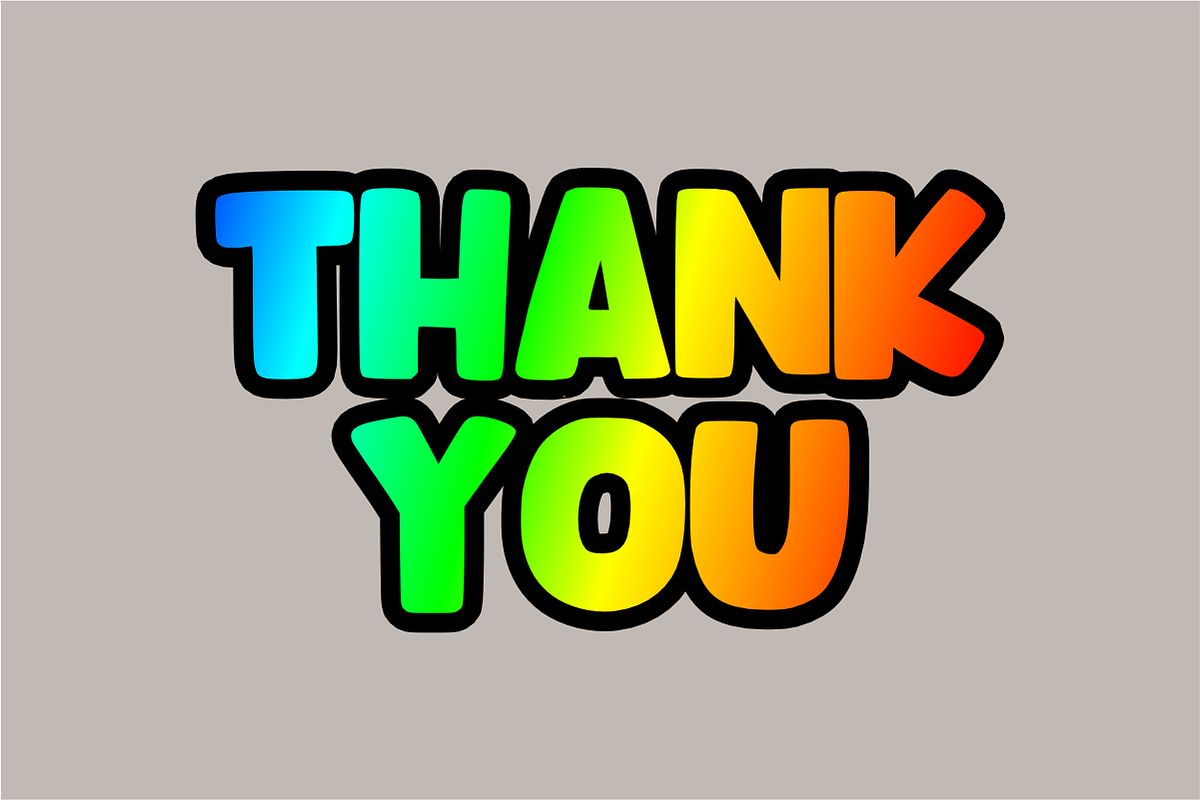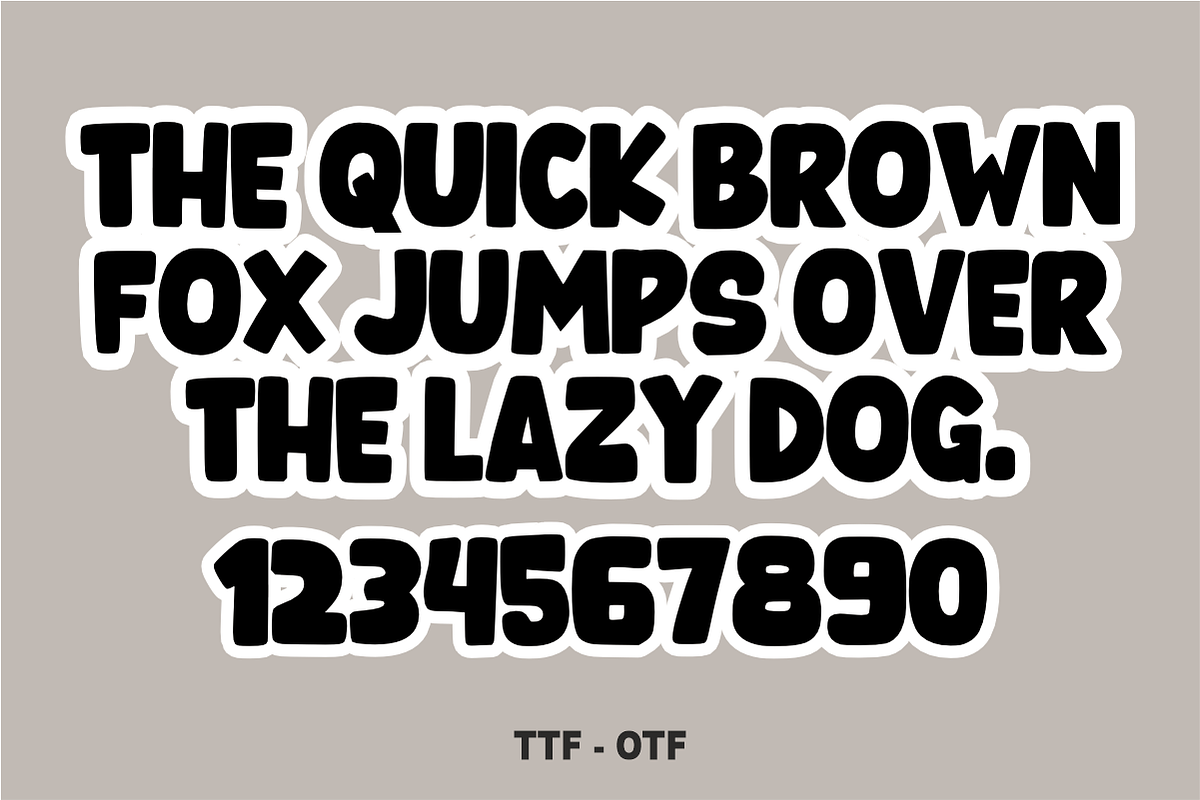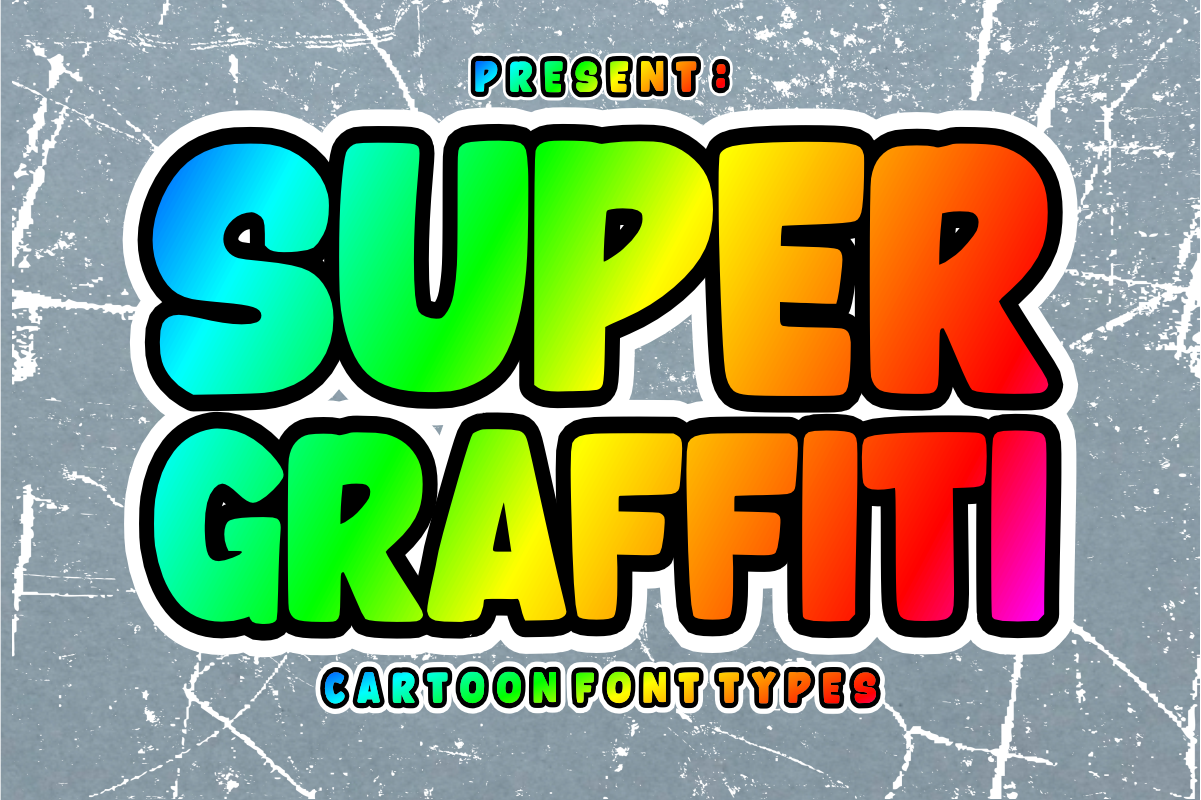
Super Graffiti- Playful Cartoon Font
Super Graffiti - Playful Cartoon Font
Super Graffiti is a bold, energetic display font featuring a fun bubble street-art style with thick, interlocking letterforms. Perfectly blending a nostalgic graffiti vibe with a cheerful cartoon twist, this chunky font is ideal for custom stickers, kids' apparel, and high-impact packaging. Every character is cleanly vectorized to guarantee smooth, effortless weeding and cutting on Cricut and Silhouette machines.
Uppercase Character Set
Numbers & Basic Punctuation
Ideal For:
Street art graphics, custom die-cut stickers, and hip-hop themed designs
Cartoon headers, children's books, and playful comic layouts
Kids' apparel, birthday party shirts, and custom skate merchandise
Classroom decorations, school posters, and teacher resources
Fun business branding, toy packaging, and cheerful logos
Cricut, Silhouette, and DIY vinyl crafting projects